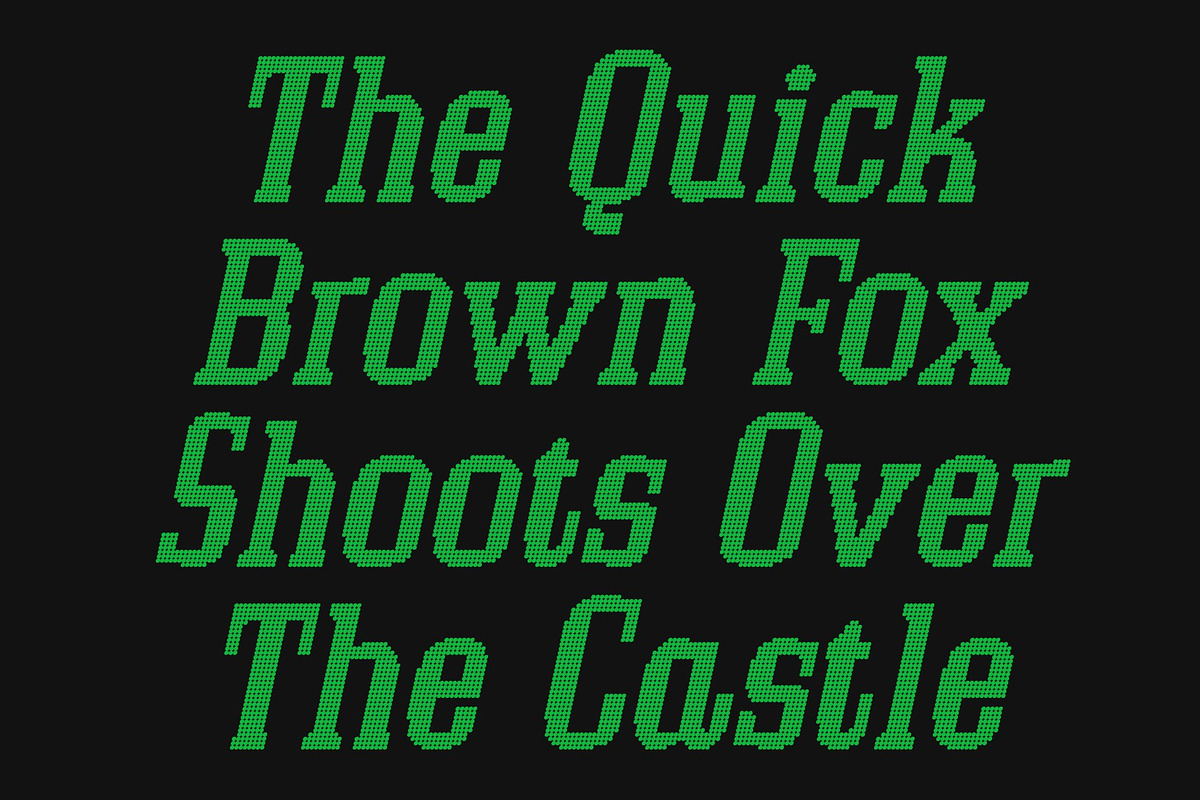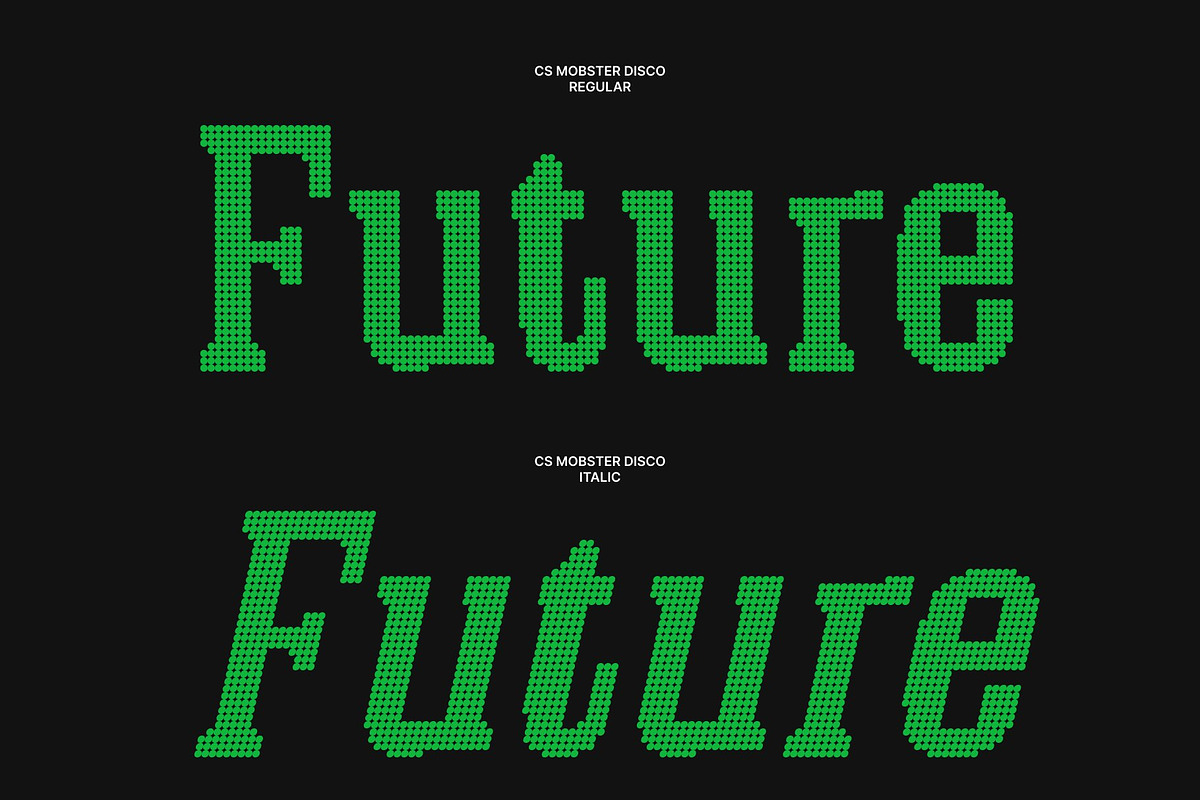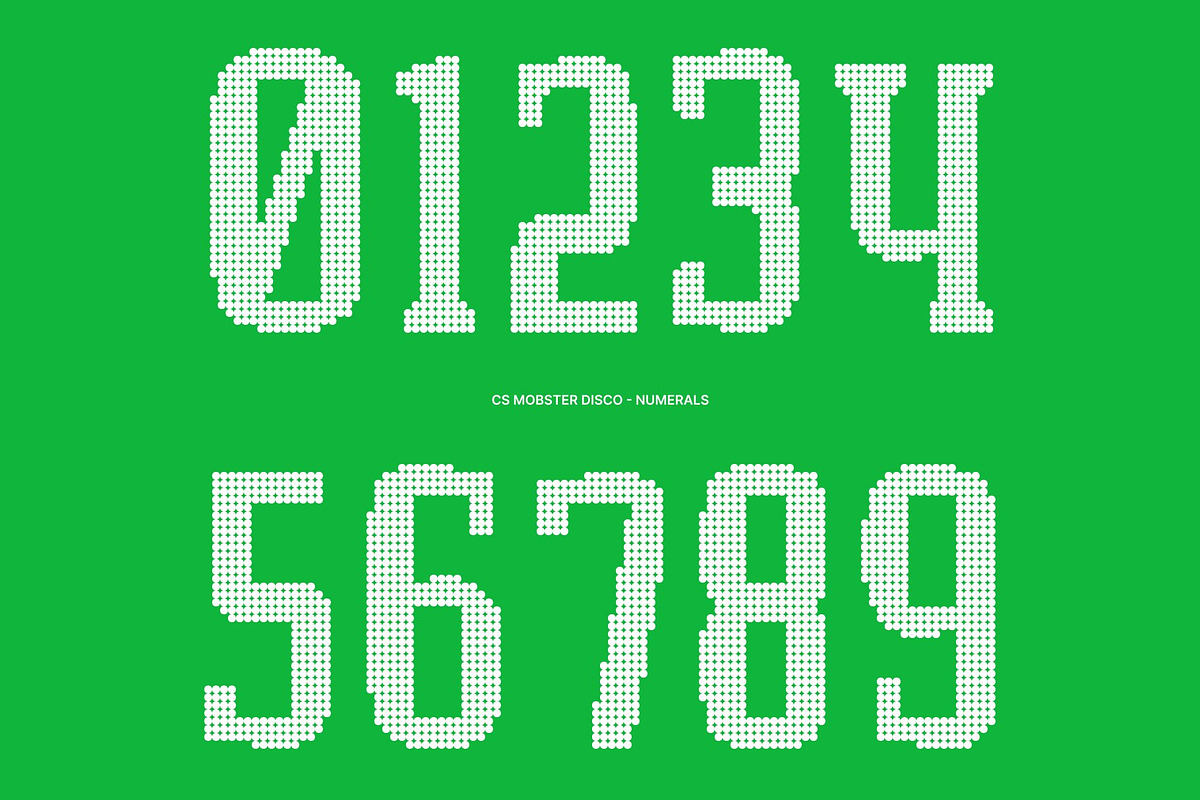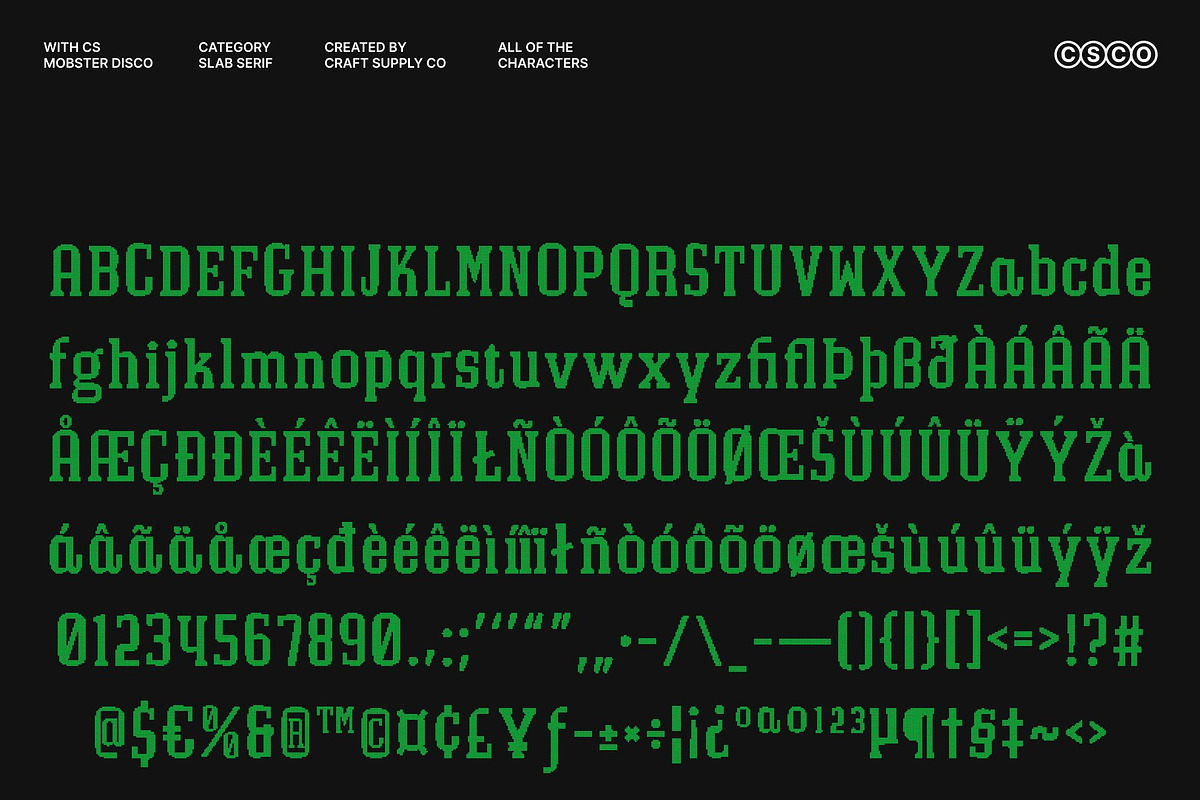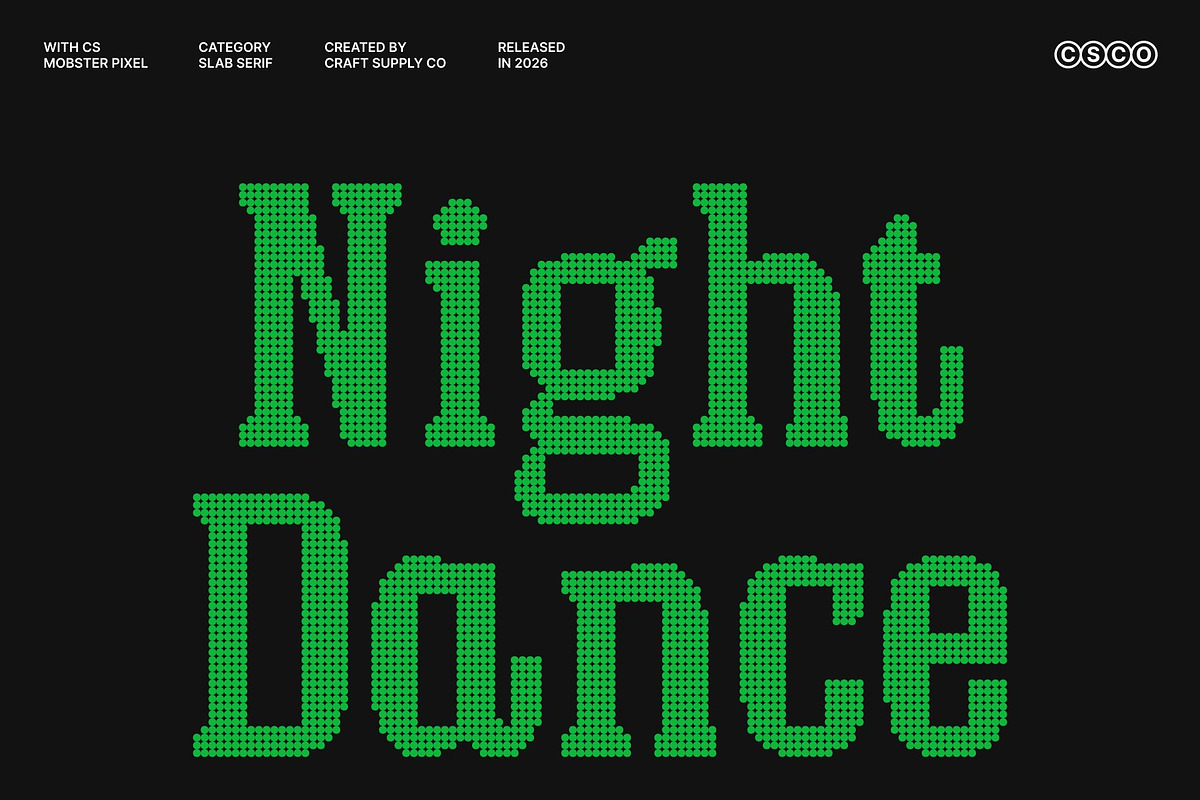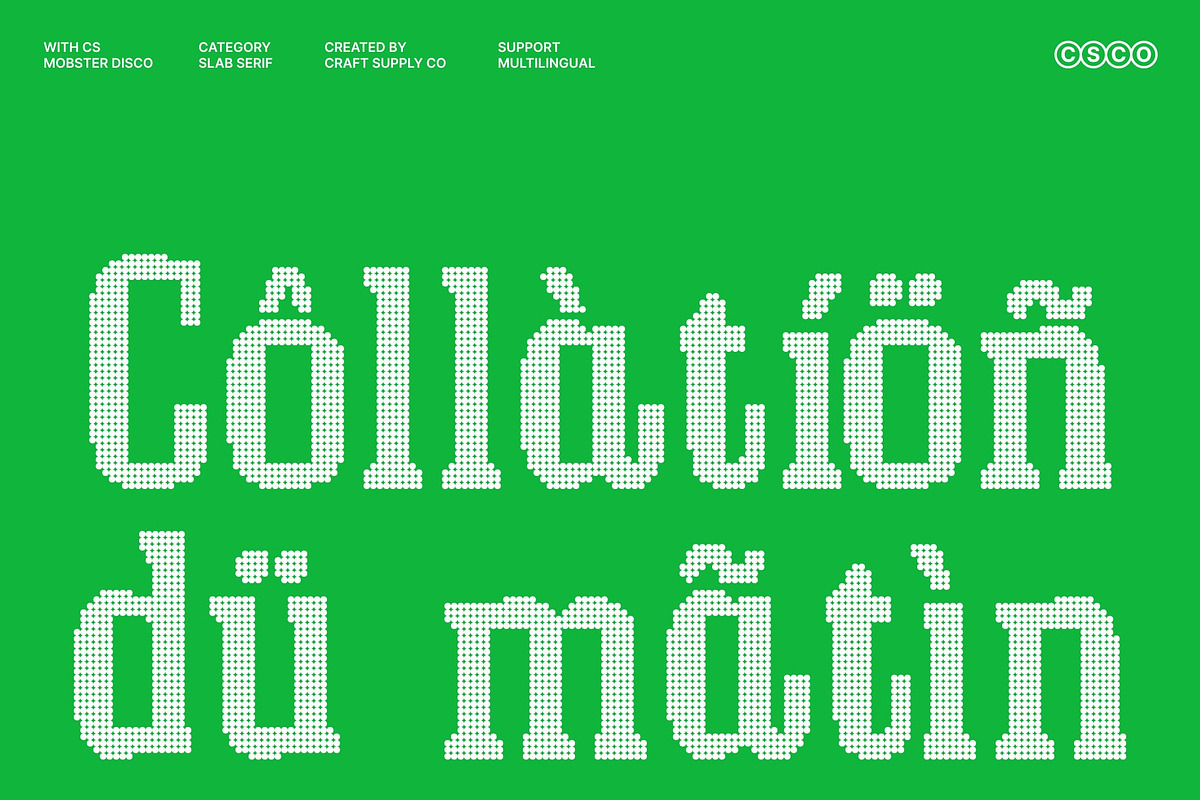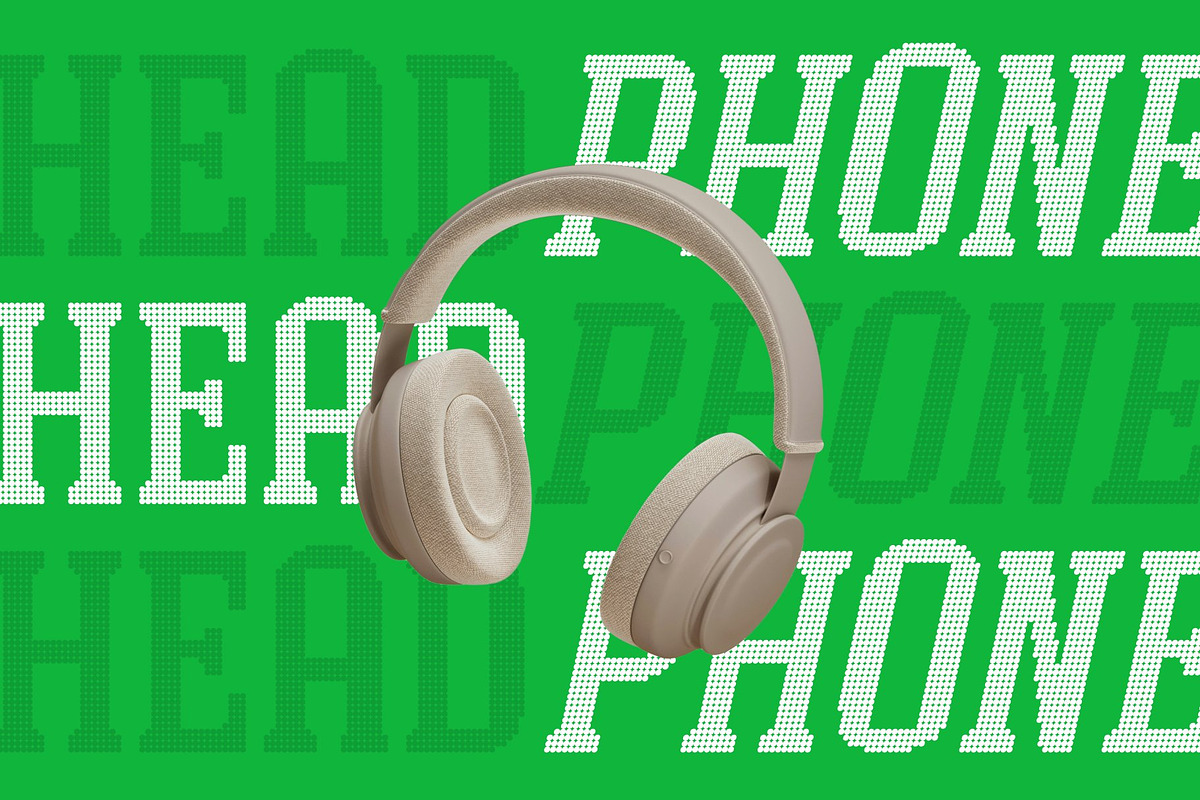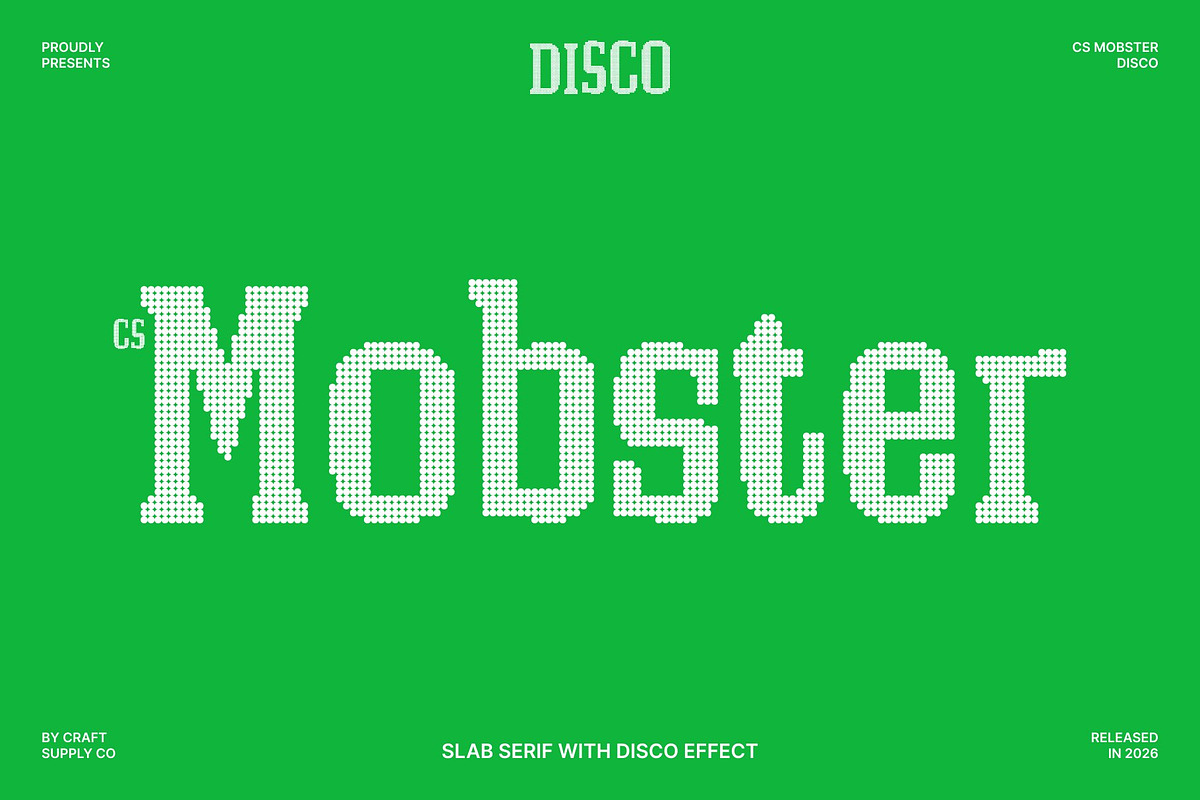
CS Mobster Disco
CS Mobster Disco – Timeless Slab Serif Strength with Bold Party Energy
Classic Slab Serif Display with Disco Attitude This is a slab serif display font built on clarity, strength, and timeless character now energized with a vibrant disco spirit. Inspired by mid-19th century typography, its generous slab serifs and solid construction deliver authority and confidence, while a polished, contemporary finish adds a sense of rhythm and modern excitement.
Strong Structure with Rhythmic Confidence Each letterform is carefully designed with balanced proportions and consistent spacing, creating a composition that feels sturdy yet stylish. The bold slab serifs ground the font with power and reliability, while the clean lines and confident shapes introduce a lively, upbeat presence like classic typography stepping into a glowing dance floor.
Vintage Roots with Glamorous Modern Flair Rooted in historic slab serif traditions, this font carries the character and authority of vintage typography, elevated with a festive, modern edge. The disco influence adds shine, energy, and visual momentum, transforming its traditional strength into something bold, expressive, and celebration-ready.
Perfect for Headlines, Logos, and Statement Branding Designed for high-impact use, this font shines in headlines, logos, packaging, jackets, posters, and branding that demand power with personality. Its timeless structure ensures clarity and impact, while its disco-driven energy brings confidence, attitude, and visual excitement strong by nature, bold by night.
- CS Mobster Disco Regular
- CS Mobster Disco Italic